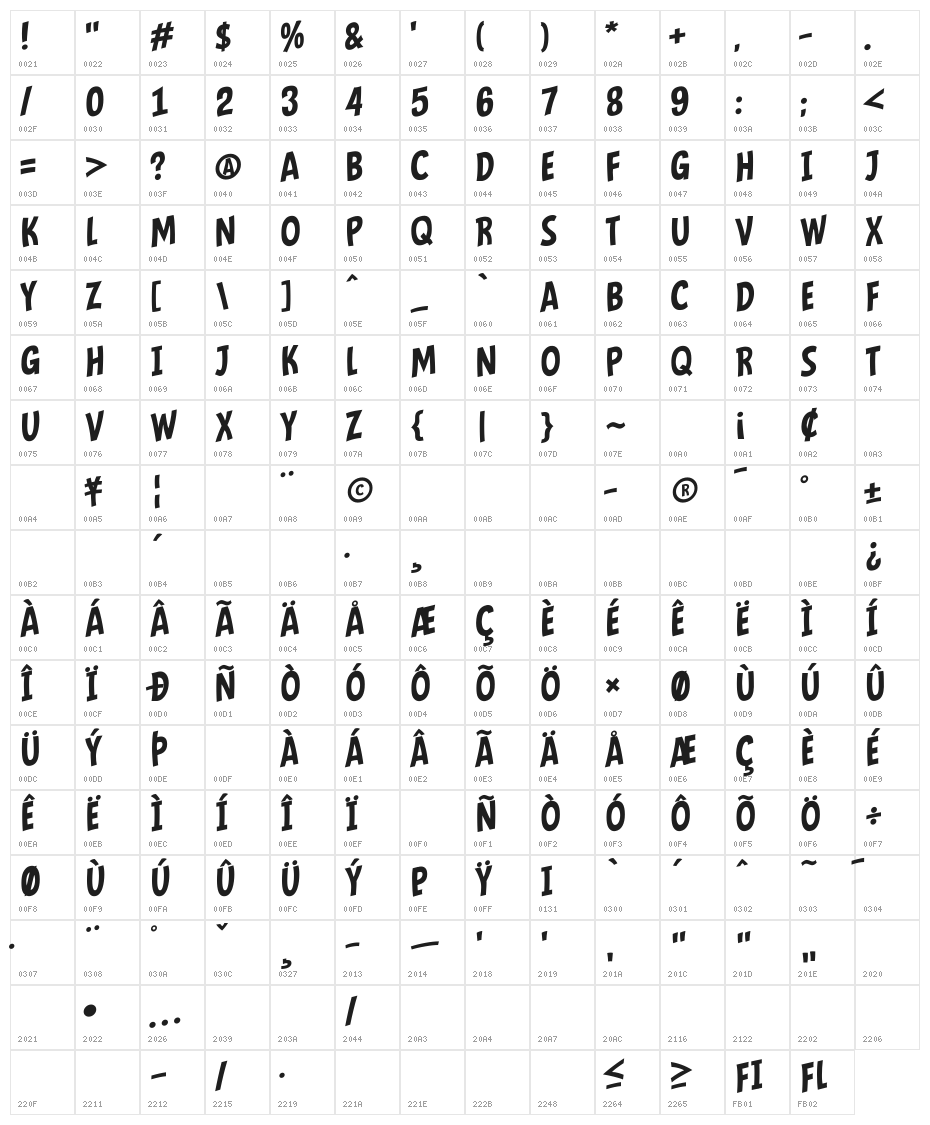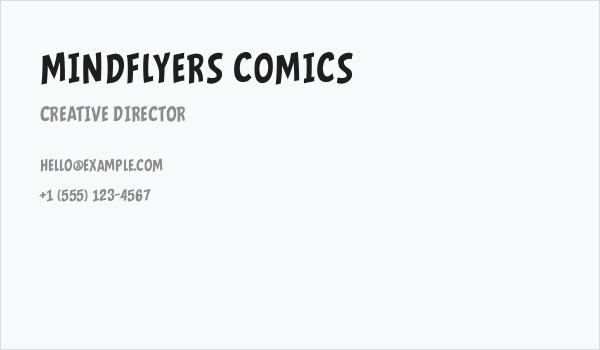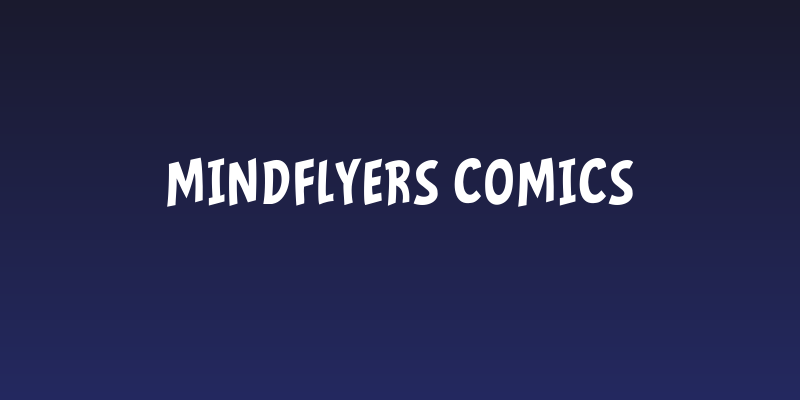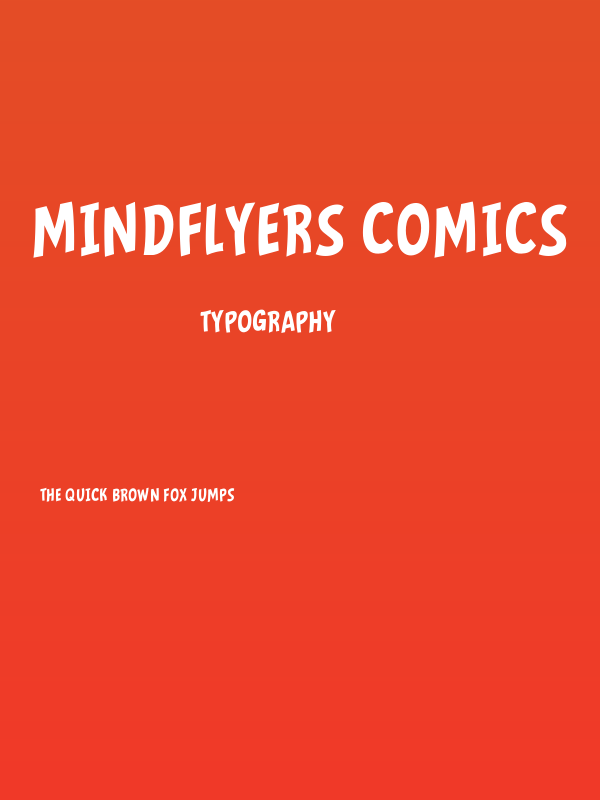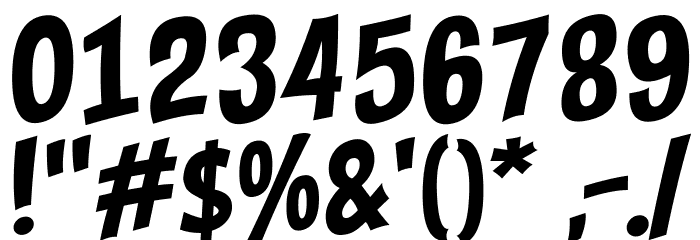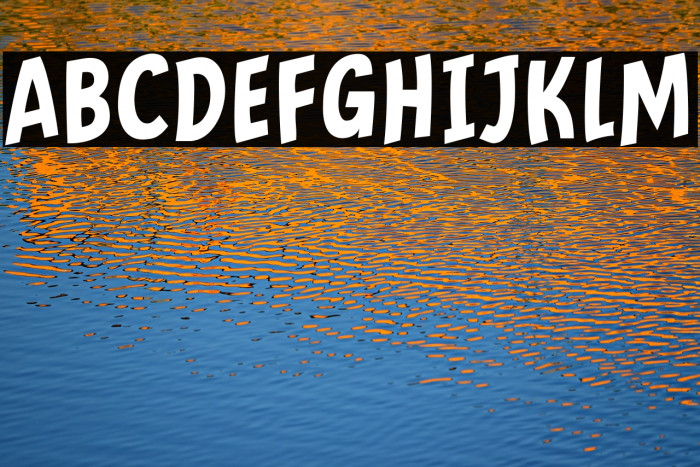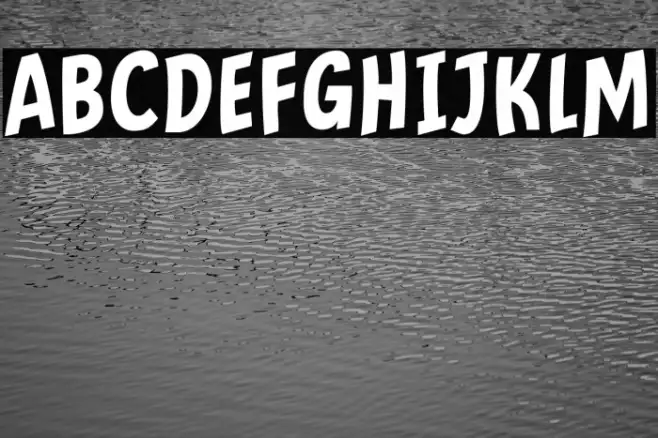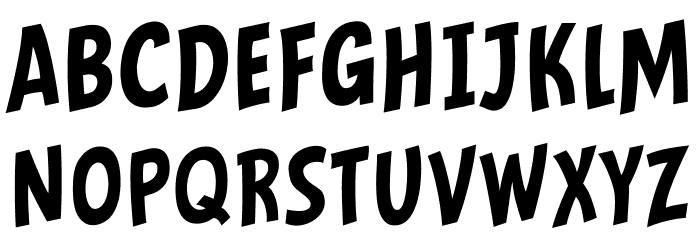
Mindflyers Comics Font
Mindflyers Comics Description
This font exhibits a playful and dynamic style, characterized by its bold and slightly irregular letterforms. The uppercase and lowercase letters are designed with a sense of movement, giving the impression of hand-drawn or comic-style typography. The numbers and special characters maintain this lively aesthetic, making them suitable for creative and informal applications. The strokes are thick and consistent, providing a strong visual impact. This font is ideal for projects that require a fun and engaging look, such as comic books, children's books, or playful branding.
| Overall Style | Playful, Comic |
| Proposed Projects | Comic books, children's books, playful branding, posters, and creative advertisements. |